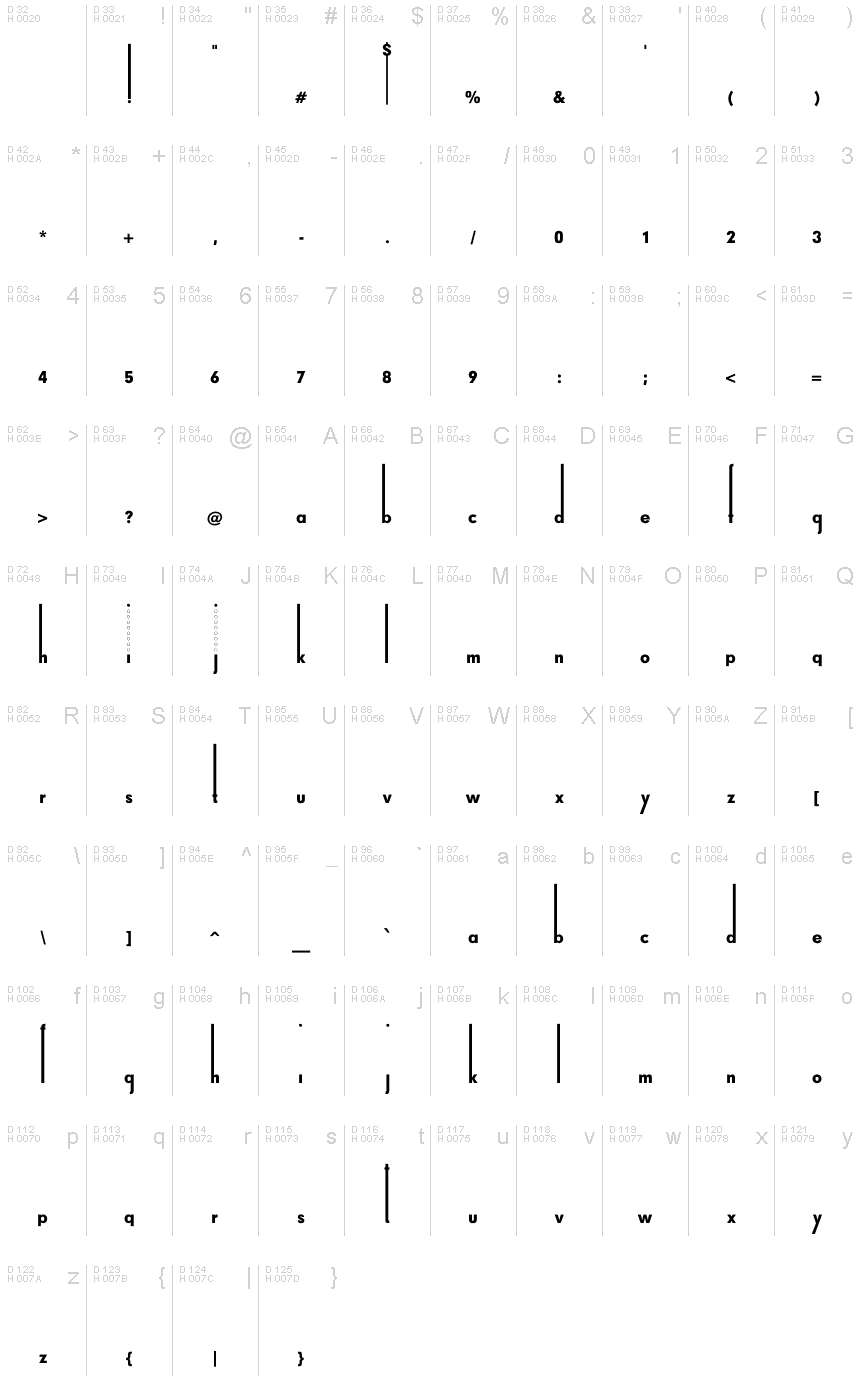
Thiamine-Regular
Thiamine is a lowercase display font with an extremely low x-height or an extremely high ascenders depending on your point-of-view.
Raymond Larabie